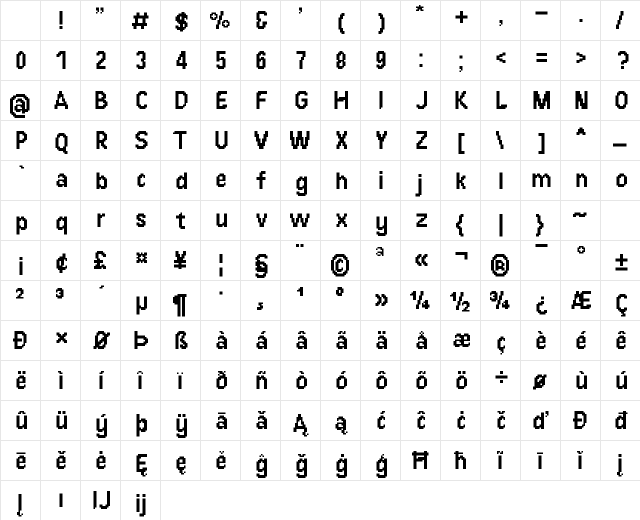
Complete PanasChill Medium glyph index. Displaying only characters natively supported by PanasChill Medium font.
PanasChill is a composed and adaptable typeface that performs quietly and consistently across a wide range of design contexts.